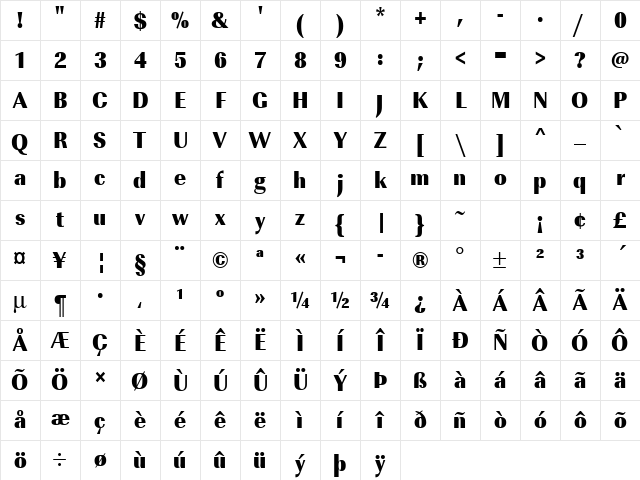
URWImperialTUltBolExtNar Regular Free Font
Design Context for URWImperialTUltBolExtNar
URWImperialTUltBolExtNar is a composed and adaptable typeface that performs quietly and consistently across a wide range of design contexts.